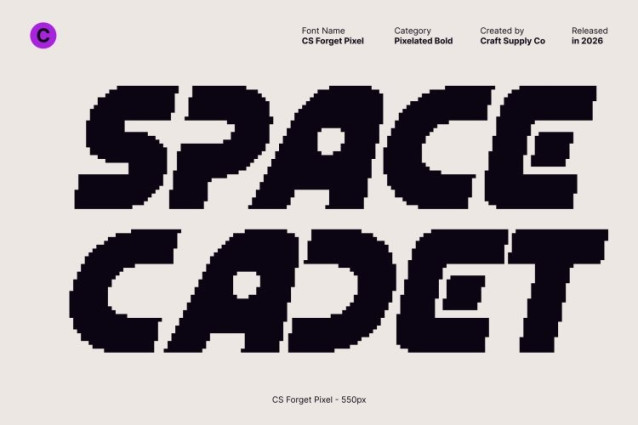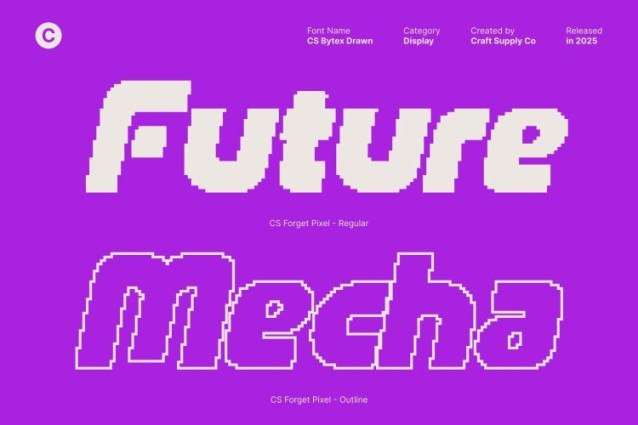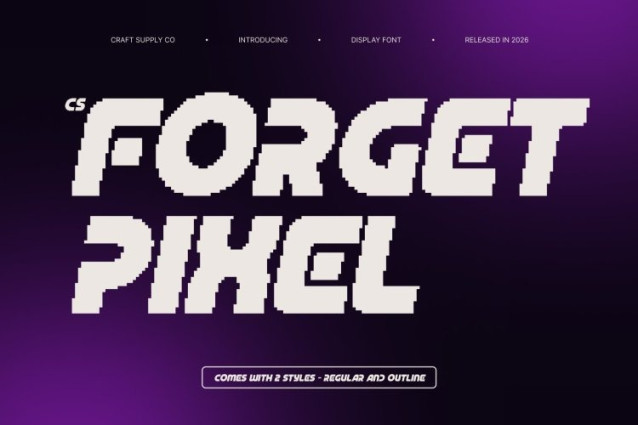
CS Forget Pixel Font
CS Forget Pixel Font This is a modern display font built around futuristic principles and a strong digital attitude. Precise geometric forms and bold linear strokes are translated into a pixel style, giving the font a sharp, tech-forward look with a retro-digital twist. The result feels innovative, clean, and visually powerful perfect for designs that want to highlight modern technology or old-school digital aesthetics at the same time.
Geometric Construction with Bold, Pixel Presence
At its core, this font features a carefully structured geometric foundation. Each letterform is constructed with balance and accuracy, creating a mechanical rhythm that feels confident and controlled. The pixel grid enhances its bold presence, ensuring every character stands out clearly and delivers maximum impact in display use.
Futuristic Style for Tech and Digital Design
This font thrives in futuristic, sci-fi, and technology-oriented environments. Its clean angles and digital proportions communicate innovation, progress, and precision. Ideal for tech branding, gaming titles, UI headers, cyber visuals, or experimental digital art, this font reinforces a strong sense of modern systems and advanced design.
Versatile Display Font with Retro-Tech Appeal
Despite its bold futuristic character, this font remains highly versatile. It performs beautifully in titles, posters, logos, tech campaigns, and digital or gaming visuals. The pixel style adds an eye-catching charm that works perfectly for both modern screens and nostalgic old-technology themes.